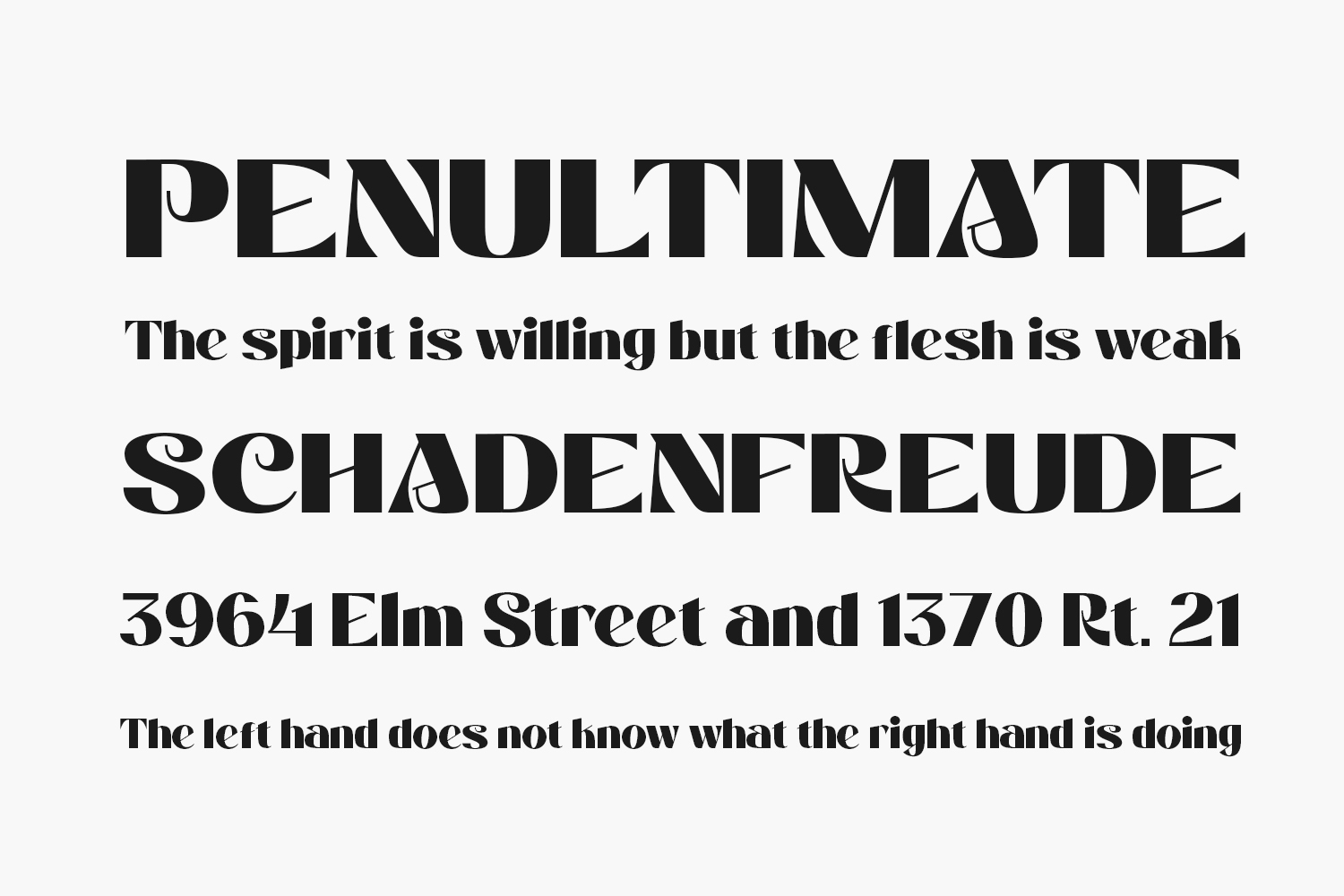
Discover the captivating Aborm Free Font, a perfect blend of modern aesthetics and cool vibes. With its sleek and trendy design, Aborm brings a touch of elegance to any design project. Whether you’re creating stunning logos and branding materials, crafting engaging social media posts, designing eye-catching advertisements, or developing innovative product designs, Aborm offers a harmonious typographic experience that will leave a lasting impression. Aborm Free Font is free for personal use only. Please purchase the full version for commercial use.
Designed by Nirmana Visual